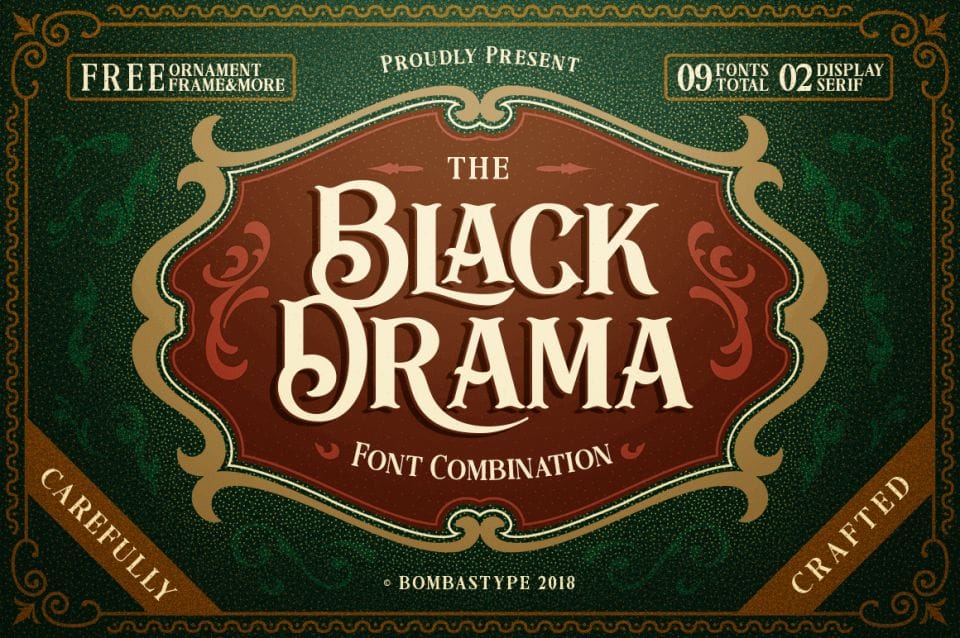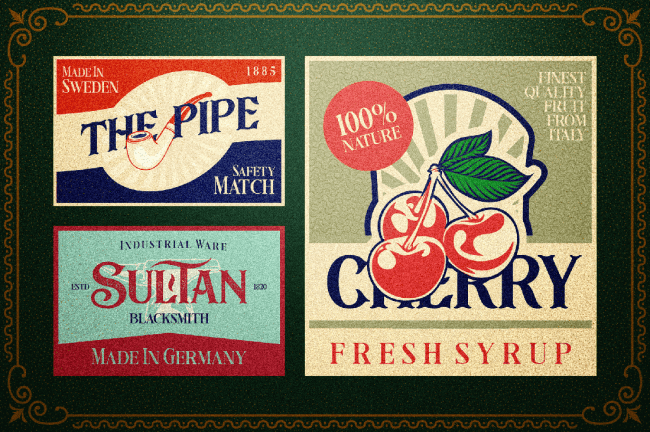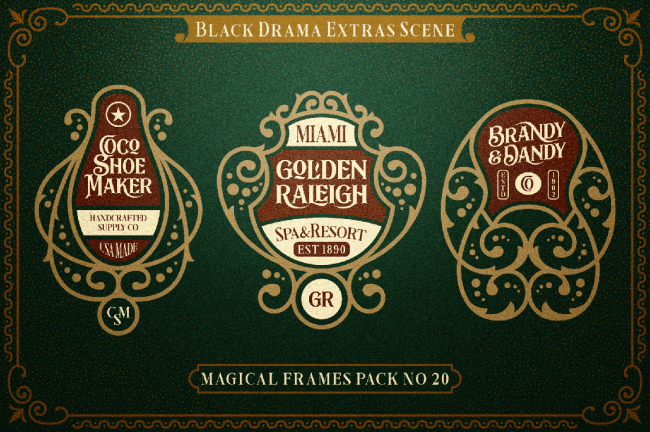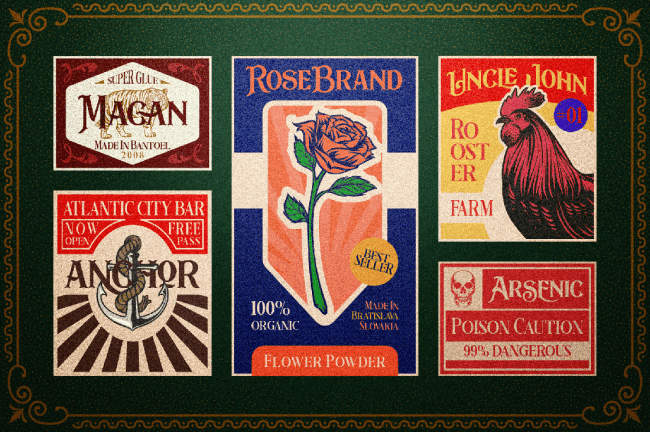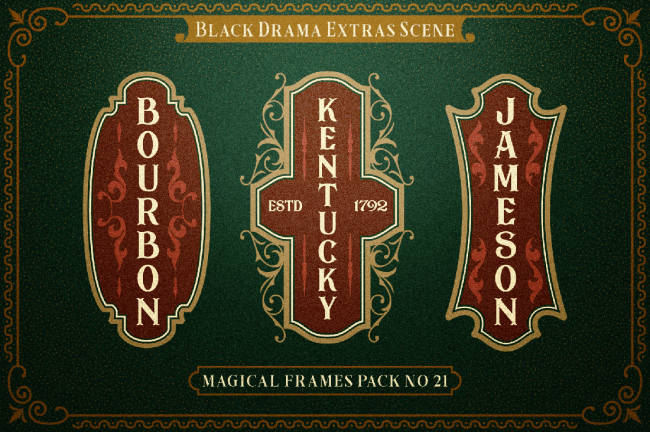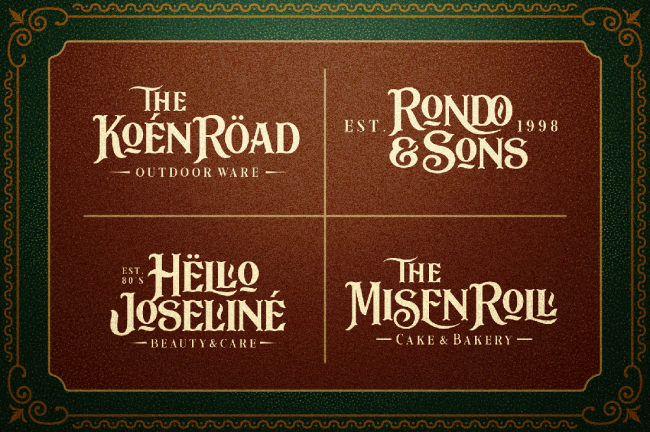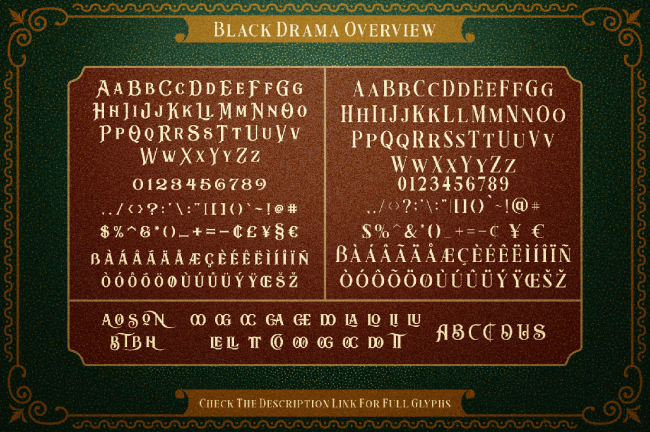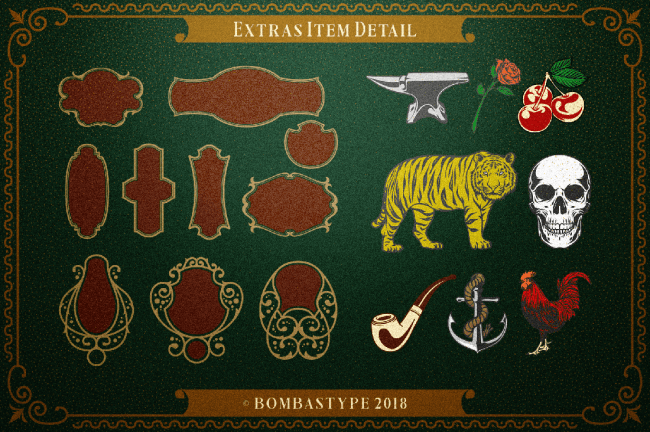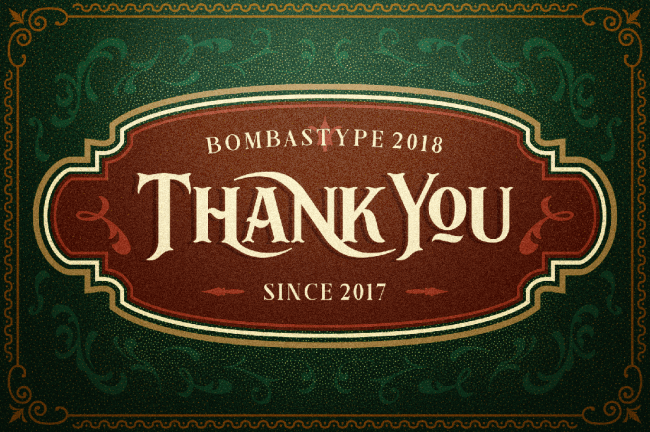
The right typeface can add some real drama to your designs. That goes double for the Black Drama Font Family! This fabulous font family features 9 beautifully elegant typefaces that are a wonderful mix of antique and retro styles. Packed with loads of extras including frames and vectors, this is one deal you can’t afford to miss.
- Beautiful and elegant font combination.
- 9 unique fonts made from 2 display serif fonts.
- Regular and Slant – clean and rough styles for each version.
- Loads of extras – alternate characters and ligatures, discretionary ligatures, ornate frames, floral elements and colorful illustrations.
- Multilingual support – spread your message around the world.